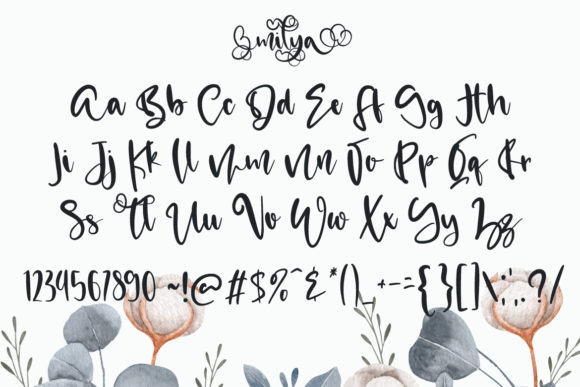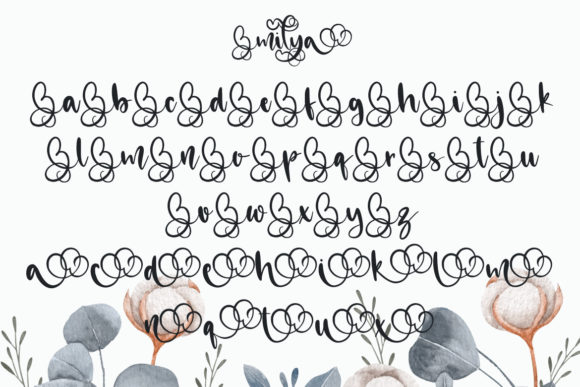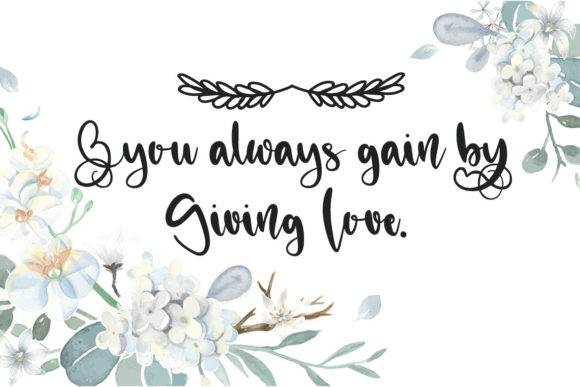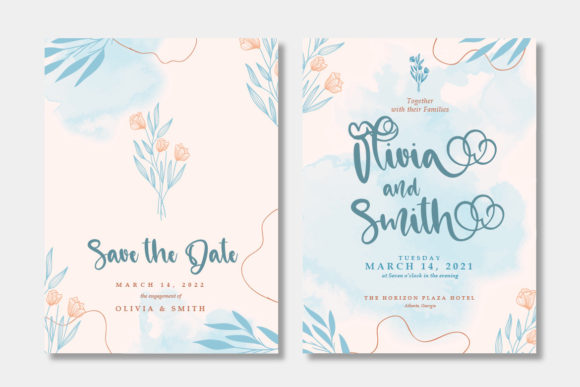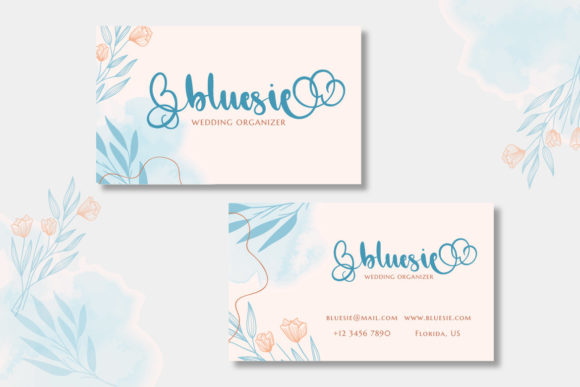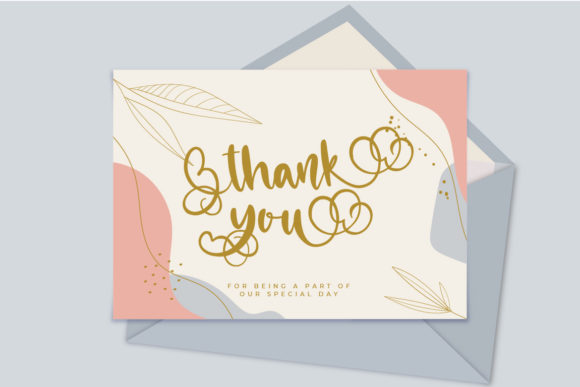
About Milya Font
Milya is a stylish and romantic handwritten font. It looks stunning on wedding invitations, thank you cards, quotes, greeting cards, logos, business cards and every other design which needs a customized vibe.